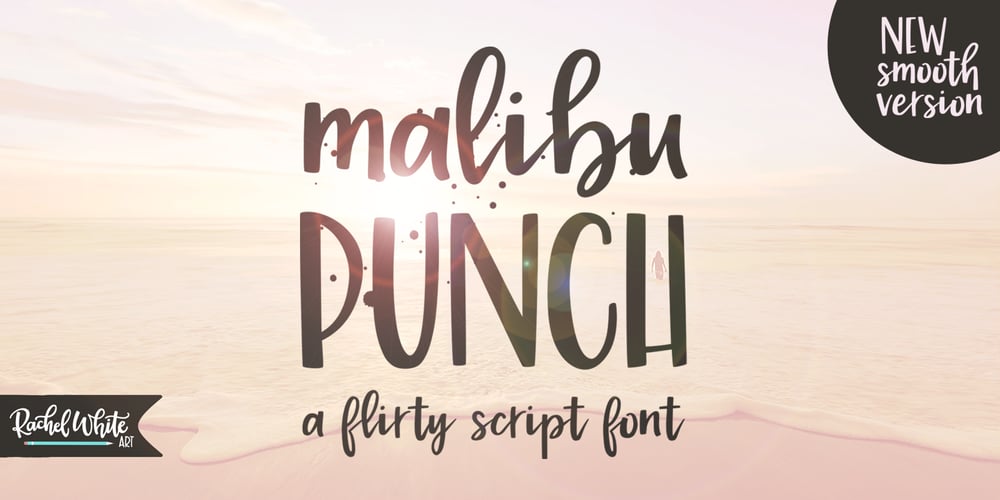
Malibu Punch Font Family was designed by Rachel White and published by Rachel White Art. Malibu Punch contains 2 styles and family package options. Malibu Punch. I am loving this sassy script font! There are two versions: rough, with tons of texture, and smooth! I made it with an itty bitty brush and pretty watercolors. It’s got loads of texture – check out those edges! Wobbly, rough watercolor edges! The capital letters work together, so it’s like two fonts in one! The lowercase script is so sassy and full of attitude. Great for branding, logos, and quote art.